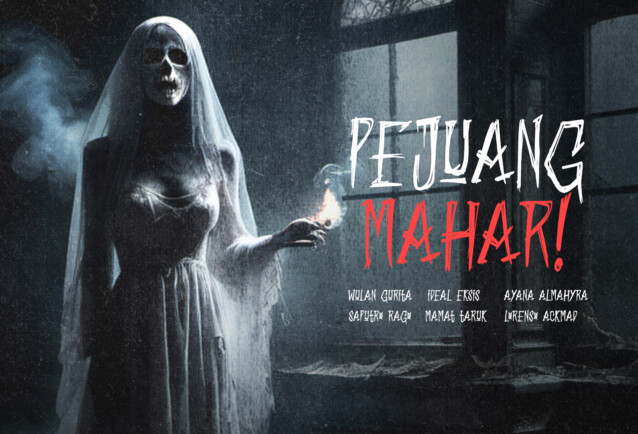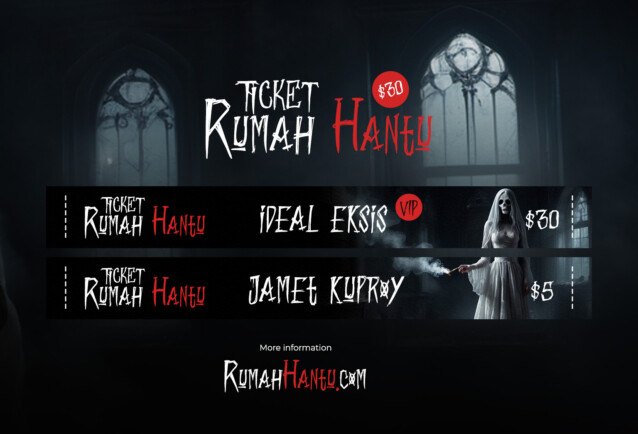
Scary Monday Font
Scary Monday Font is a spine-chilling font that embodies the essence of horror with its ominous and eerie design. This font exudes an unsettling atmosphere, making it the perfect choice for any project seeking to evoke a sense of fear and foreboding. The letters in Scary Monday are uniquely crafted with jagged, uneven edges, resembling the handwriting of a sinister presence. The characters seem to bleed into one another, creating an unsettling and claustrophobic feel, as if the words are whispering malevolent secrets.